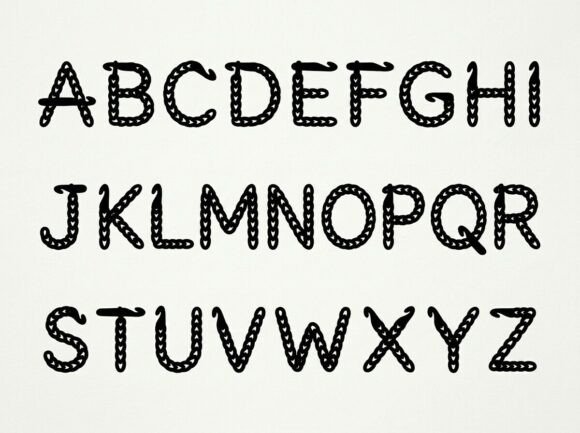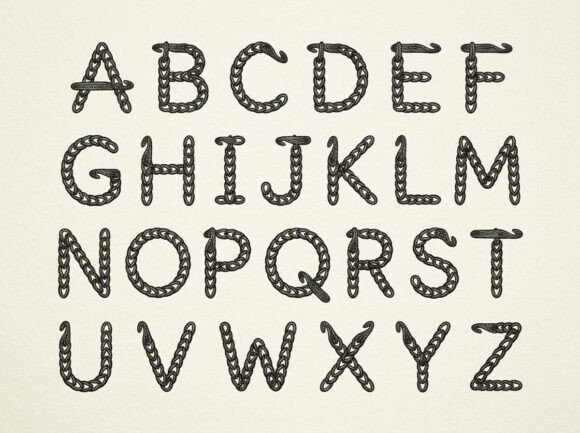
Introducing Dixie Font: A Stunning Decorative Display Font
Are you tired of using the same old fonts for your creative projects? Look no further than Dixie Font, a unique and artistic display font that’s sure to turn heads. Designed to be the center of attention, this font features a strong visual personality and is perfect for creators who want to break away from the ordinary.
What Makes Dixie Font Special?
Dixie Font is a versatile decorative display font that’s ideal for a variety of creative projects, including bold headlines, artistic logos, and creative packaging. With its unique artistic elements and professional finish, this font is sure to elevate your designs to the next level. Whether you’re a designer, crafty DIY enthusiast, or entrepreneur, Dixie Font is the perfect choice for anyone looking to add a touch of personality to their work.
Before making a purchase, it’s essential to note that Dixie Font is an ALL-CAPS (Uppercase Only) display typeface. This means that it does not include lowercase letters. However, this is by design, as Dixie Font is specifically crafted for high-impact headlines, logos, and decorative initials where every letter is a work of art.
Use Cases for Dixie Font
So, what can you use Dixie Font for? The possibilities are endless! Here are a few ideas to get you started:
- Bold Headlines: Use Dixie Font to create eye-catching headlines for your blog posts, articles, or social media graphics.
- Artistic Logos: Create a unique and memorable logo for your business or brand with Dixie Font.
- Creative Packaging: Add a touch of personality to your product packaging with Dixie Font.
- Decorative Initials: Use Dixie Font to create beautiful decorative initials for your designs.
Why Choose Dixie Font?
With so many fonts available, why choose Dixie Font? Here are just a few reasons:
- Unique and Artistic: Dixie Font features unique artistic elements that will set your designs apart from the crowd.
- Professional Finish: Despite its decorative nature, Dixie Font maintains a professional and polished finish.
- Versatile: Dixie Font can be used for a variety of creative projects, from bold headlines to artistic logos.